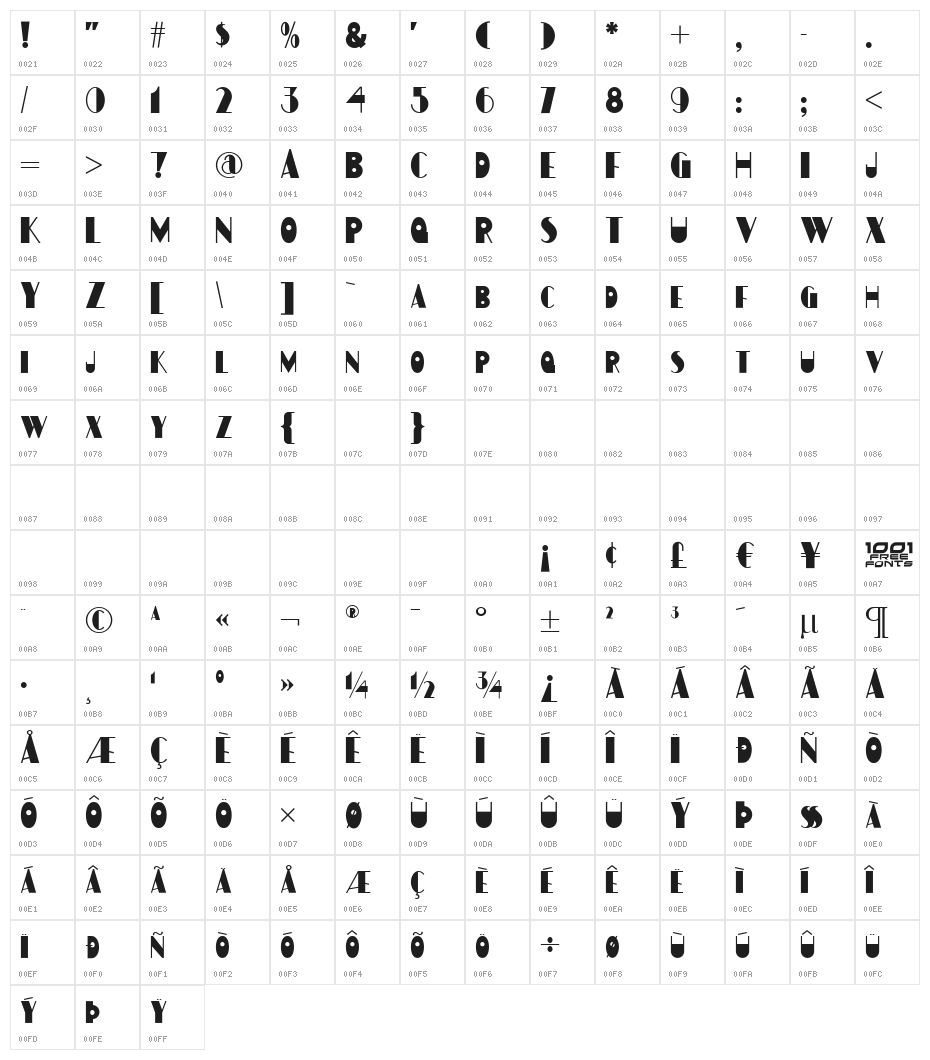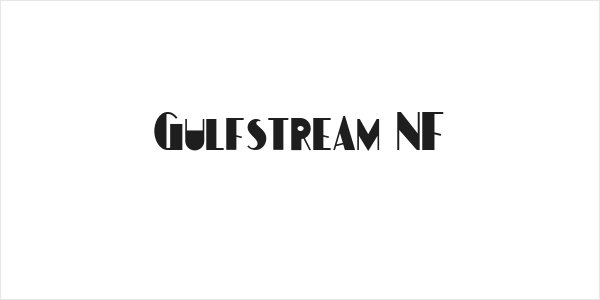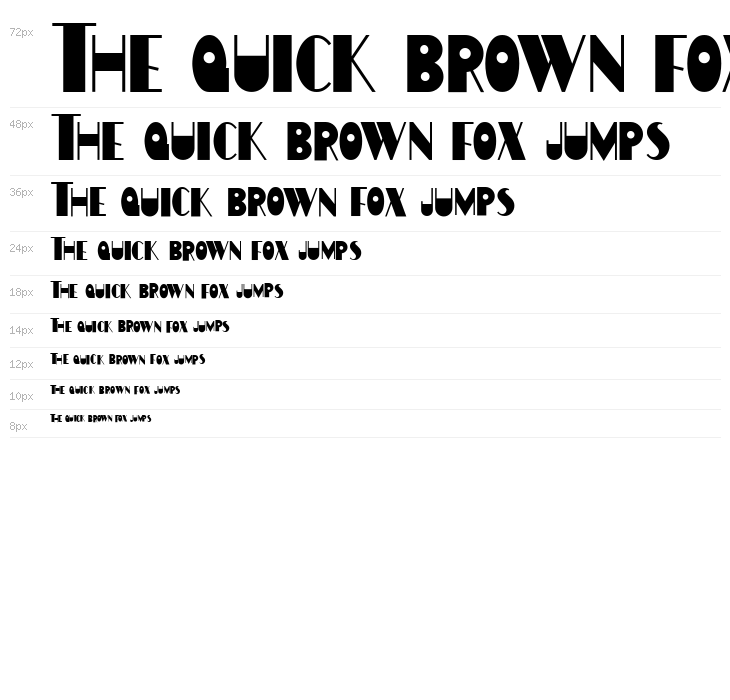
Gulfstream NF Font
Gulfstream NF Description
This font features a bold and striking design with a strong geometric influence. The characters are crafted with a mix of sharp angles and smooth curves, creating a dynamic and eye-catching appearance. The uppercase letters are particularly distinctive, with unique cutouts and shapes that add a modern flair. The numbers and special characters maintain this bold style, ensuring consistency across all elements. This font is ideal for making a statement, with its high contrast and artistic design elements.
| Proposed Projects | Perfect for branding, poster design, and headlines where a strong visual impact is desired. |